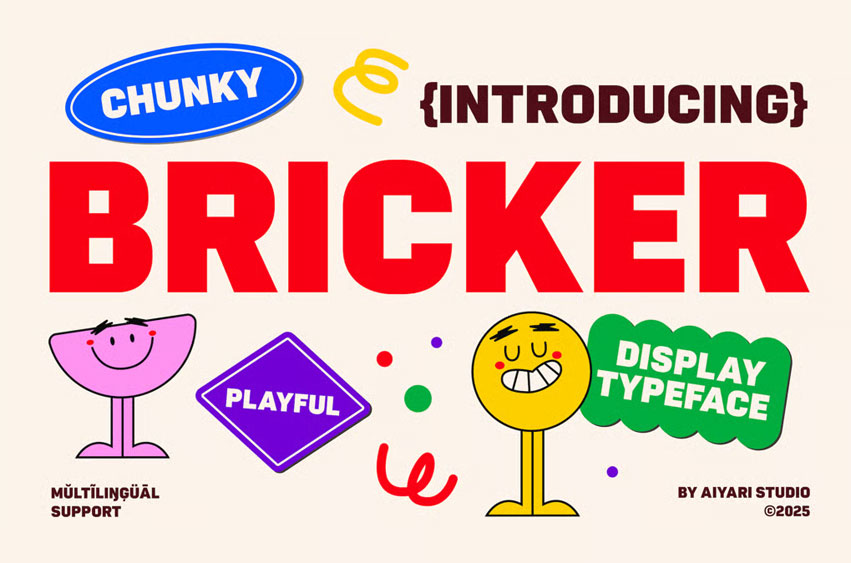
Bricker Playful Font is a chunky grotesk display typeface with a playful twist and a structural backbone. Its heavy black weight and squared-in counters give it a unique rhythm — bold yet approachable, geometric yet full of personality.
Bricker is especially well-suited for branding, editorial headlines, gaming graphics, event posters, and creative packaging. Anywhere you want your message to feel strong, fun, and unmistakably modern, Bricker delivers with confident, square-edged charm.